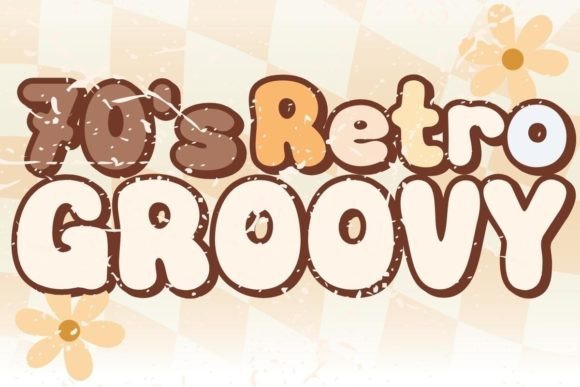
Introduction to 70’s Retro Groovy Font
Timeless Elegance, Modern Flair: 70’s Retro Groovy seamlessly combines timeless elegance with a modern flair.
Its graceful curves and playful strokes capture the essence of a bygone era while maintaining a contemporary edge, making it the perfect choice for projects that demand both style and substance .
Key Features of 70’s Retro Groovy Font
Why Choose 70’s Retro Groovy Font?
70’s Retro Groovy Font offers exceptional quality and versatility, making it a valuable addition to your design toolkit. Whether you’re creating for personal projects or commercial use, 70’s Retro Groovy Font delivers professional results.